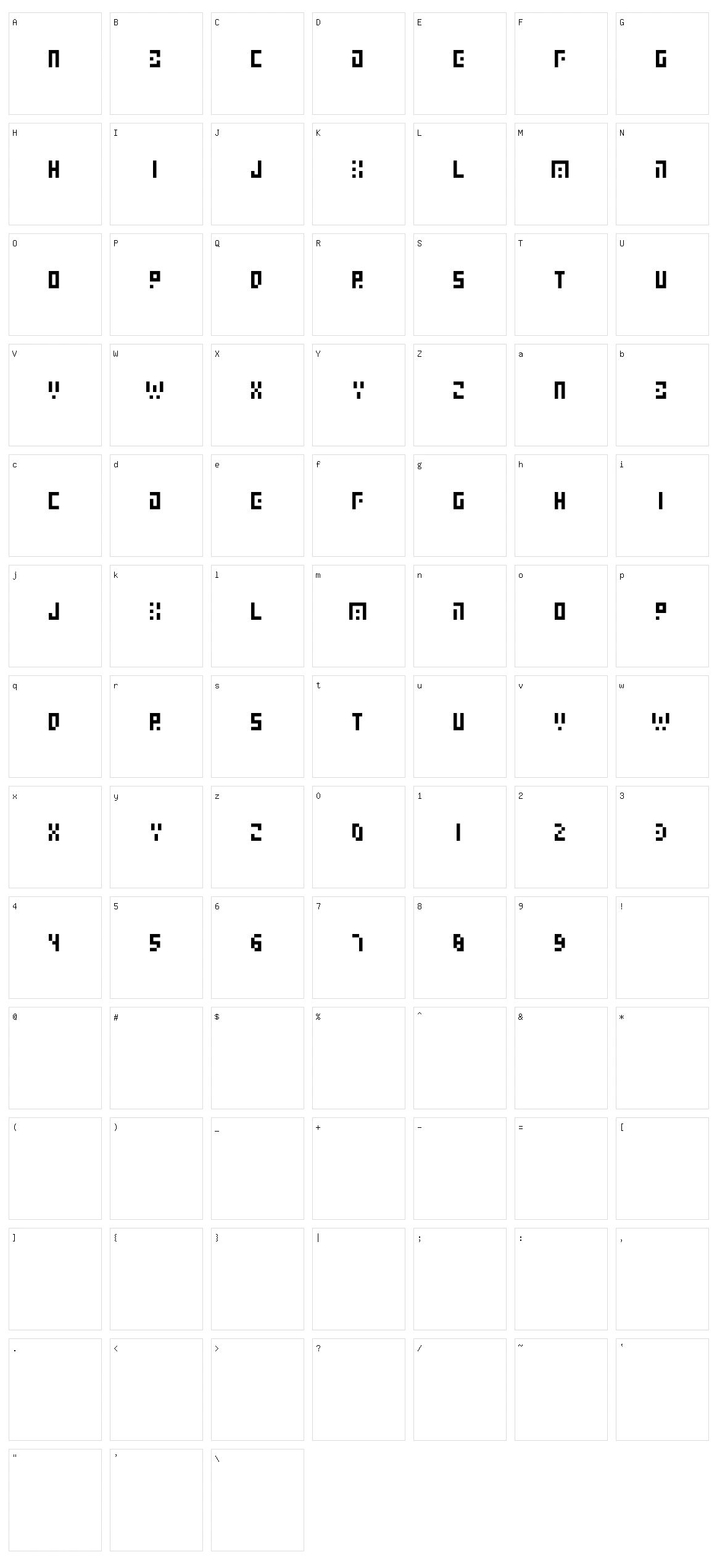
The free font Elab Collaboration is carefully designed by v4lkyr, showcasing a thoughtful balance of creativity and usability and falls under the Square font style. When you download the ZIP file, it contains only 6.39 KB of font files, making it lightweight and quick to download. Please review the license details below to understand permitted usage and distribution rights. If license information is not available, we recommend using this font for personal projects only or contacting the author directly for commercial usage permissions.